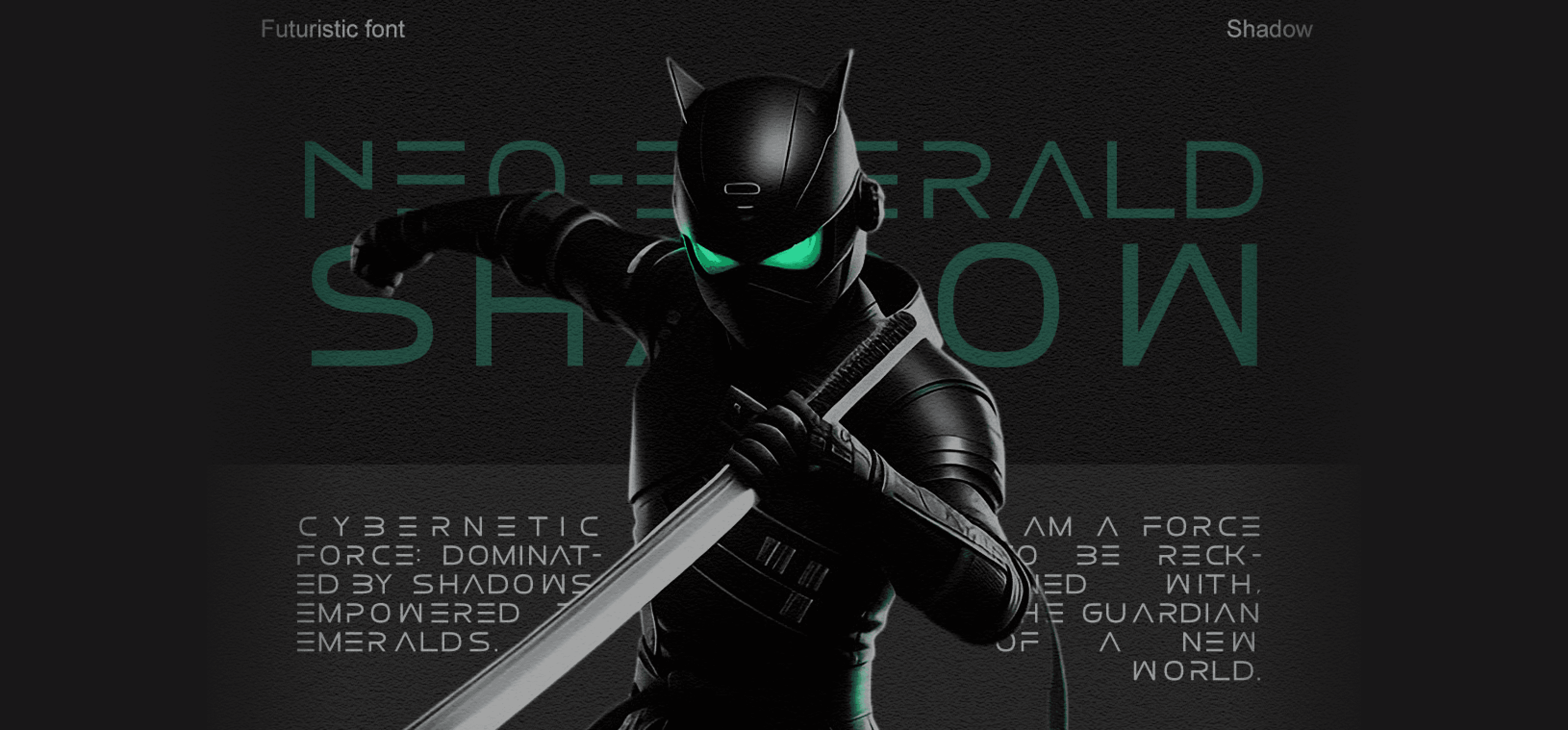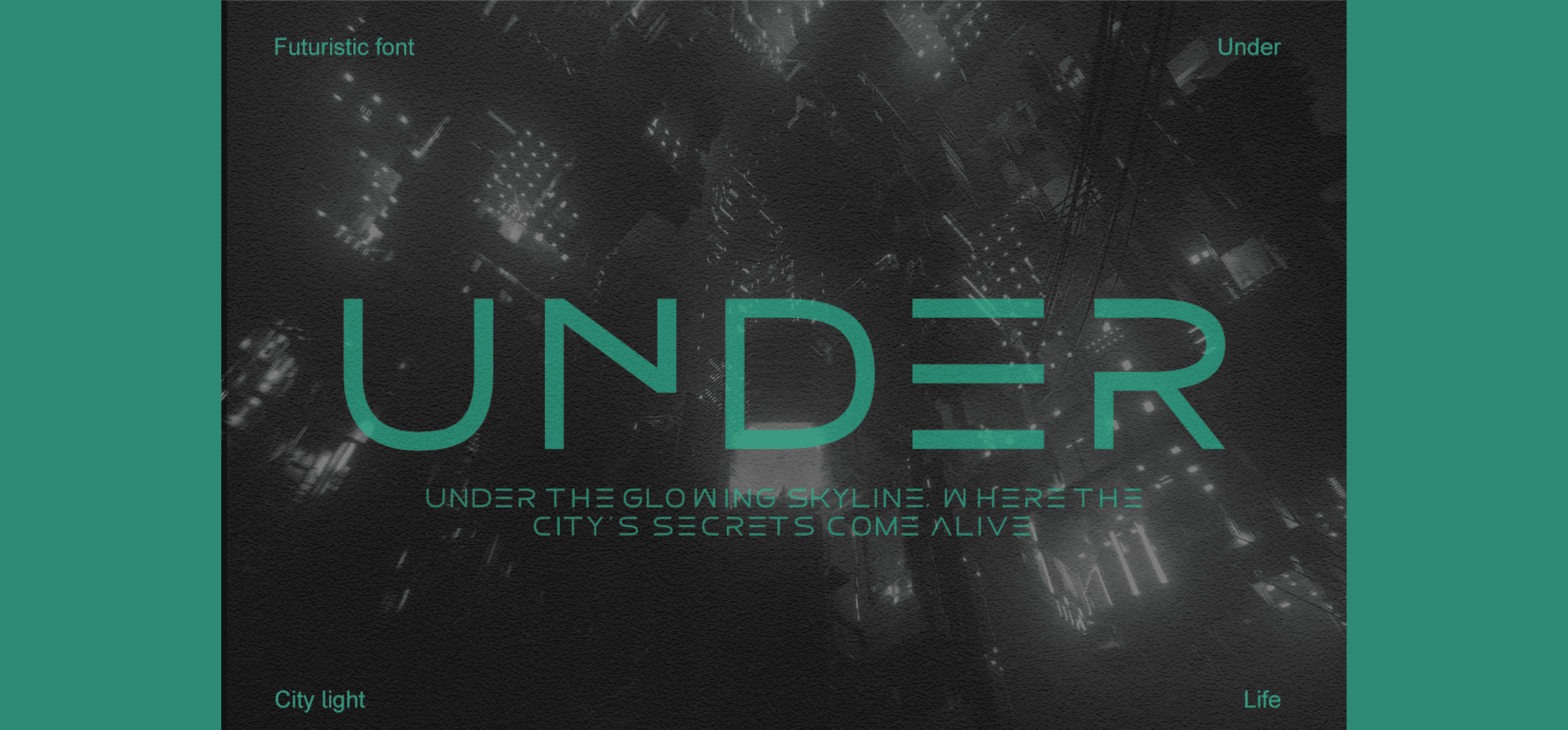
Felbion is a bold futuristic typeface designed for sci-fi storytelling, space-themed visuals, and digital-forward branding. Its clean geometry, sharp edges, and high-tech aesthetic make it ideal for game titles, cinematic posters, UI/UX interfaces, and concept-driven projects. With multilingual support and a cybernetic vibe, Felbion delivers clarity and visual intensity for creators aiming to design beyond Earth’s horizon. It’s the perfect font to launch your next cosmic or futuristic vision.